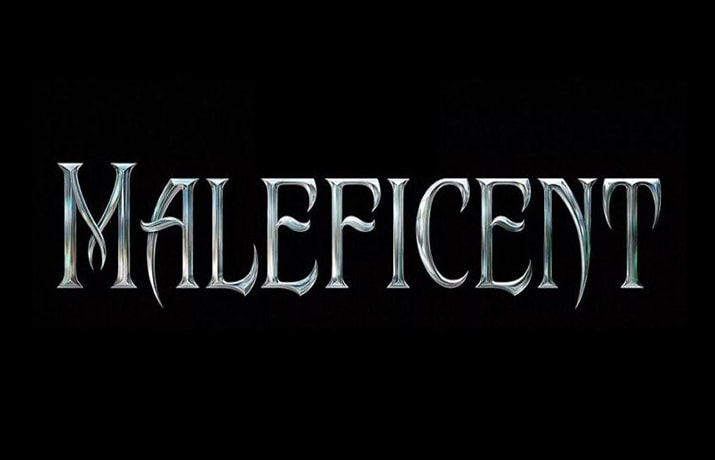
Maleficent Fon is a gothic variant font that comes with a unique texture. Miss Jennifer Z. took charge of designing it for the first time in October 2014.
Its texture has been created in a unique way in which the designer has taken inspiration from the movie poster Maleficent. It is an American fantasy film that was first released on May 28, 2014.
Thus, the designer decided to create this malefic font just to fulfill this need. But now it can be used for many projects besides movies.
| Font Name: | Maleficent Font Family |
| Style: | Gothic, Movie, Display |
| Font Designer: | Miss Jennifer Z. |
With this beautiful cool texture, you can create brand logos, unique signs, product designs, product packaging, titles, display headers, movie posters, unique signs, horror quotes, horror posters, and more.